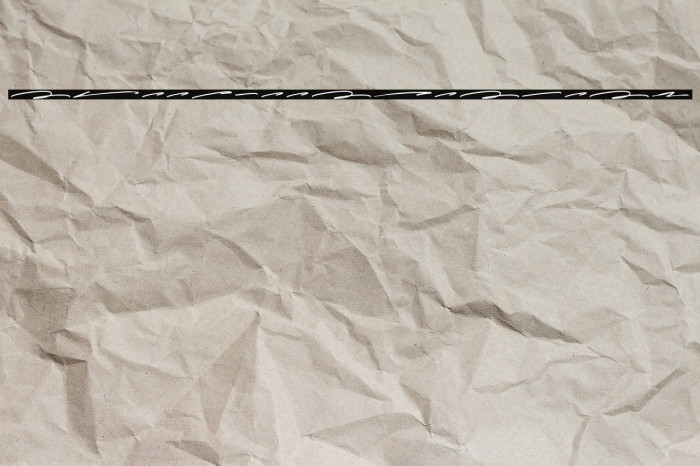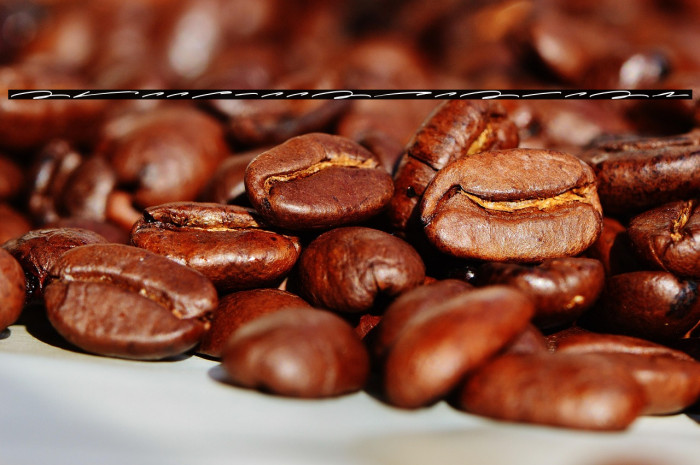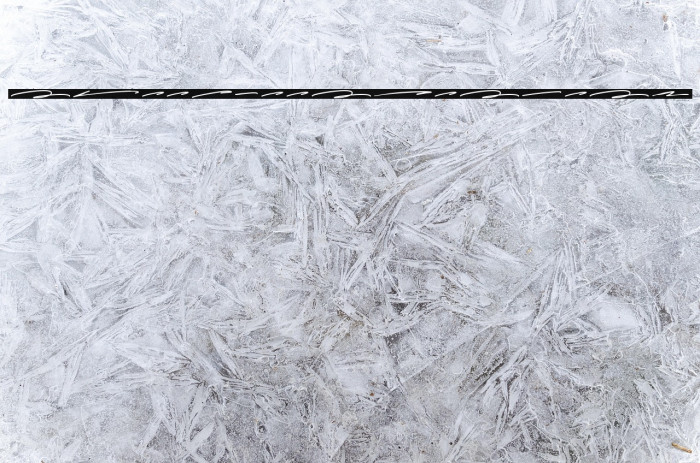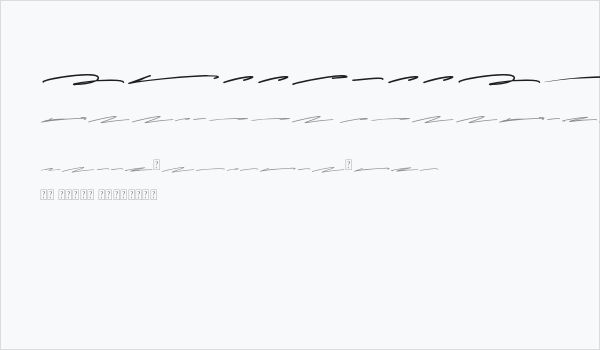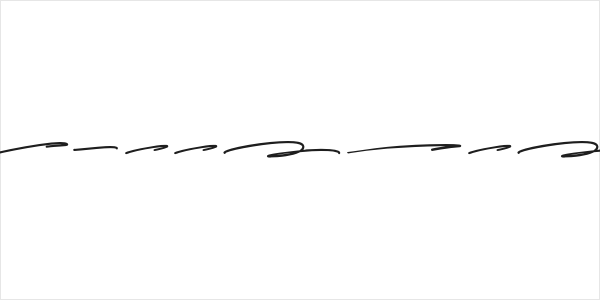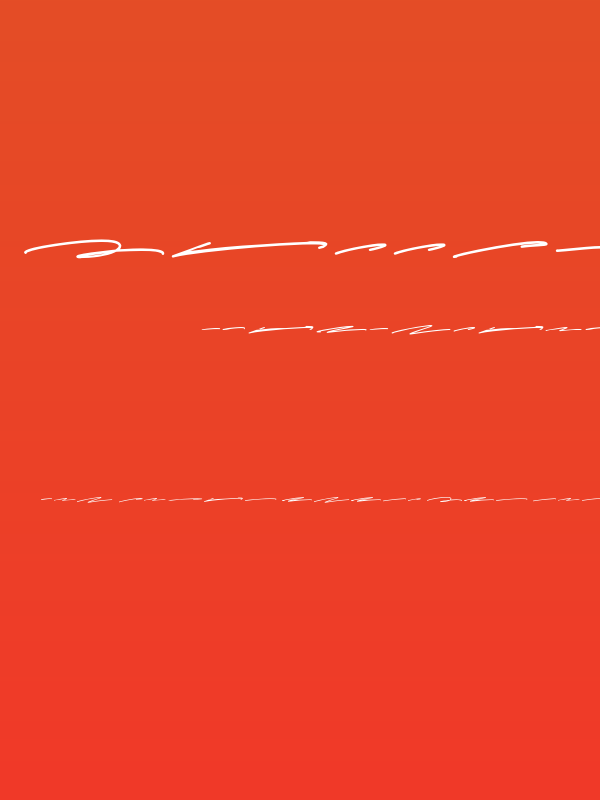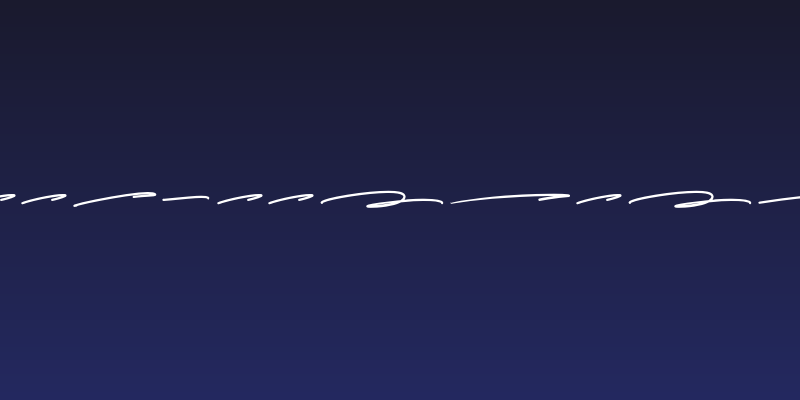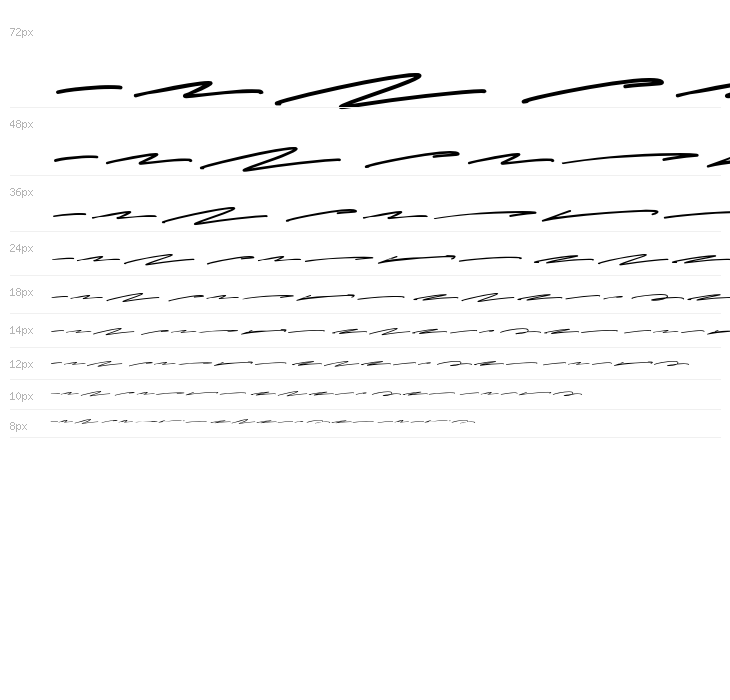
ScandynafiaSwash Font
ScandynafiaSwash Description
This font features an elegant and flowing script style, characterized by its swash elements and fluid strokes. The letters are interconnected, creating a seamless and artistic appearance. The design is reminiscent of classic calligraphy, with a modern twist that adds a touch of sophistication. The font's graceful curves and loops give it a dynamic and lively feel, making it ideal for creative and expressive projects. Its unique style stands out, offering a blend of traditional and contemporary aesthetics.